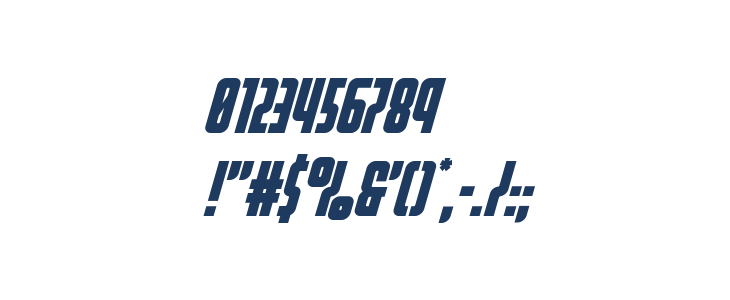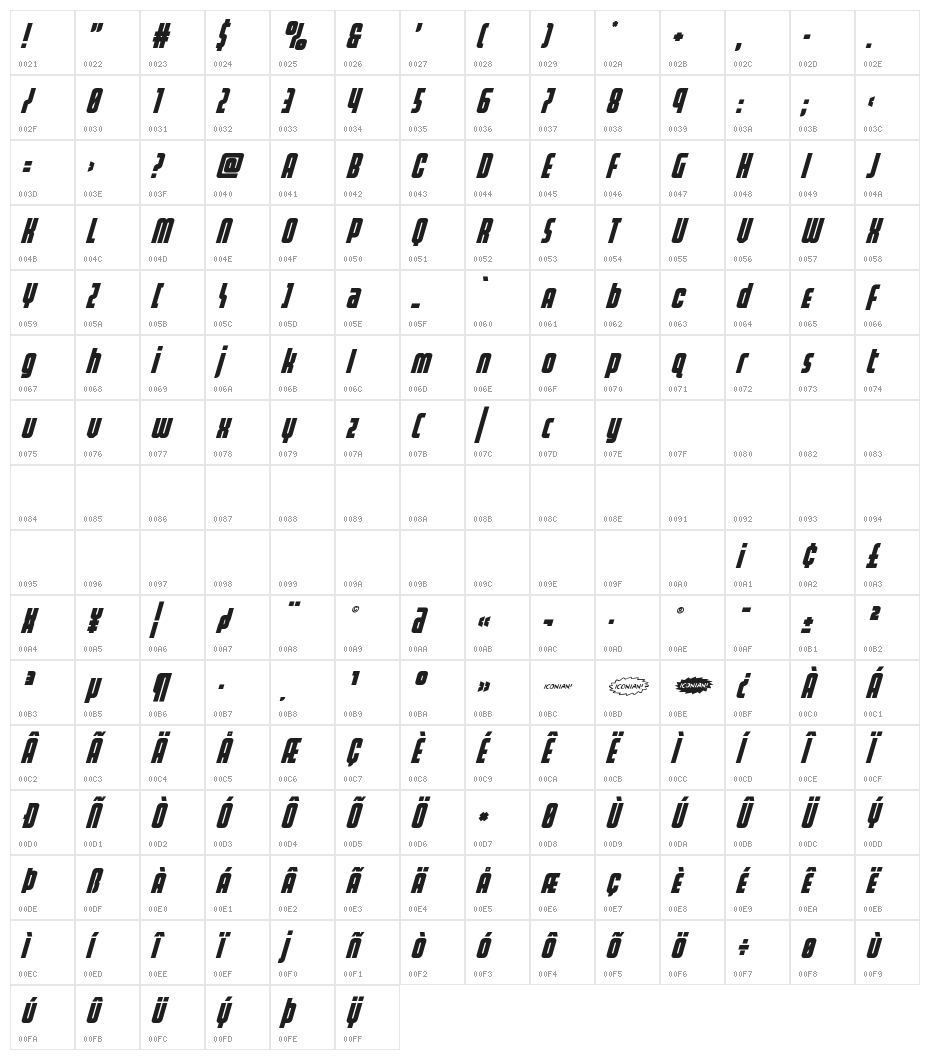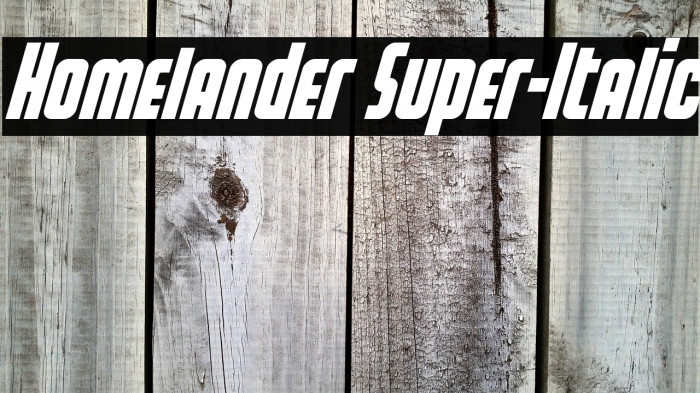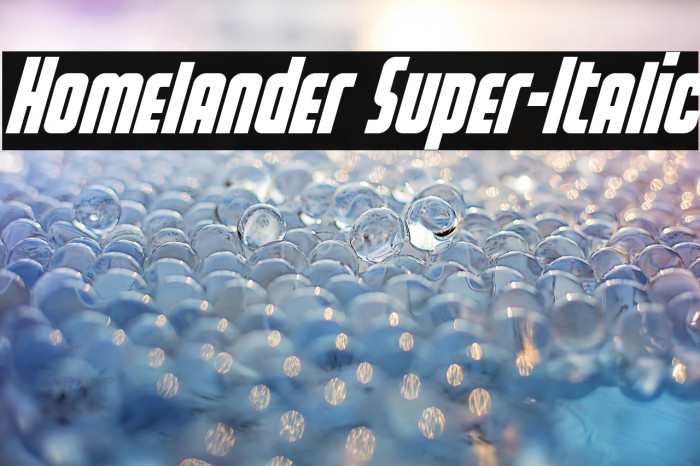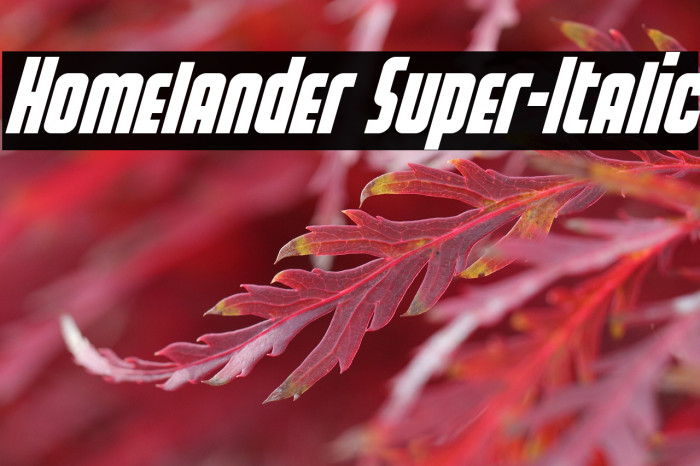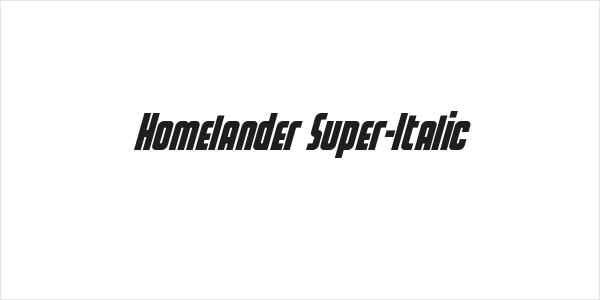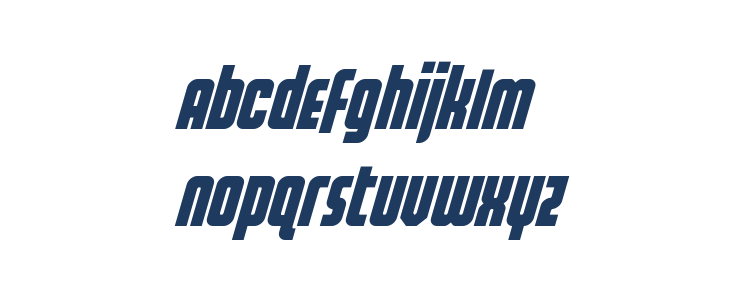
Homelander Super-Italic Font
Homelander Super-Italic Description
This font features a bold, italicized style with a strong, dynamic presence. The characters are slanted, giving a sense of motion and energy. The strokes are thick and consistent, providing a robust and impactful appearance. The uppercase and lowercase letters maintain a uniform width, contributing to a cohesive look. The numerals and special characters are designed to match the boldness and slant of the alphabet, ensuring a harmonious overall design. This font is ideal for projects that require a striking and modern aesthetic.